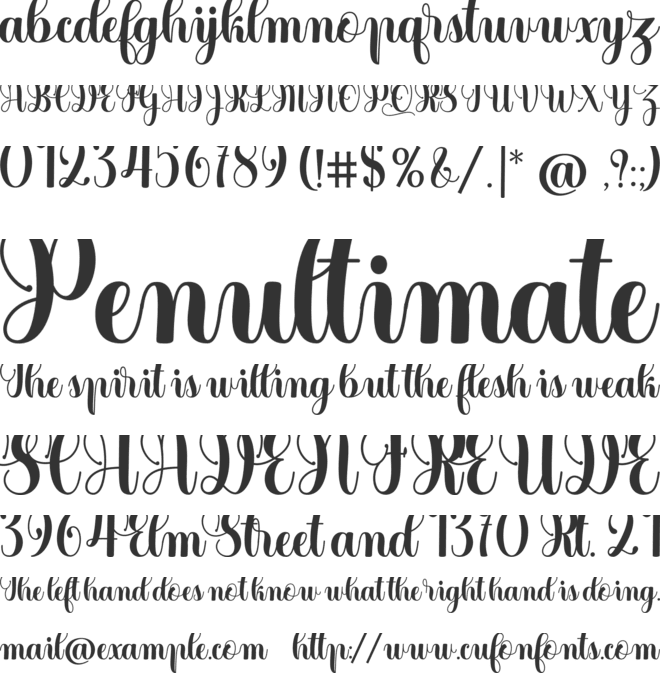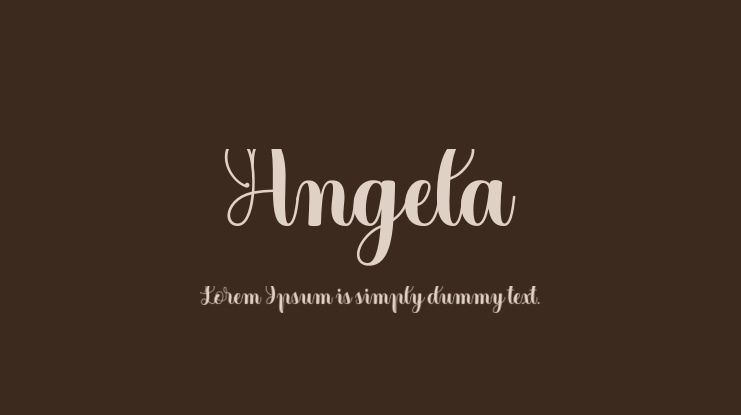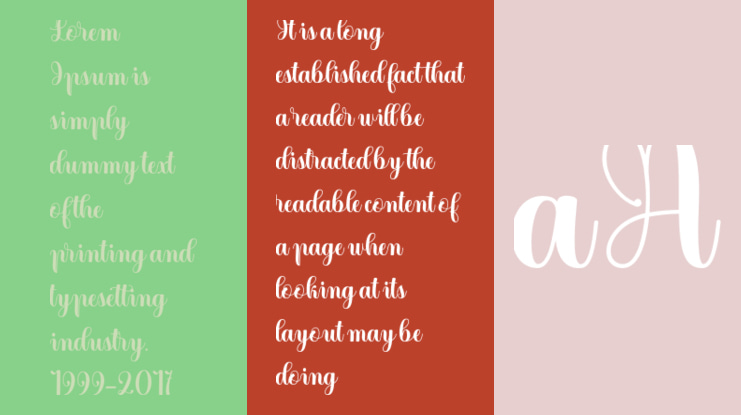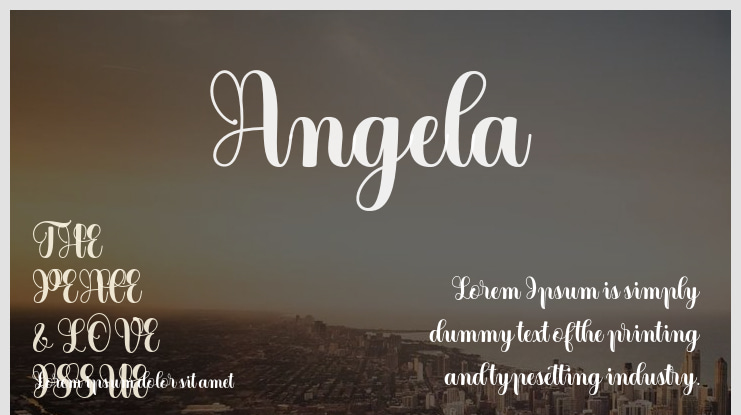
Angela Font
INTRODUCE...! Angela
Angela is a type of font with personality. You can use it as logos, badges, packaging, titles, posters, t-shirts / clothes, greeting cards, and wedding invitations. Flowing characters are ideal for creating interesting messages, mixing and matching Montana with many alternative characters that fit your project.
Alternative characters in this font are divided into several OpenType features such as Stylistic Alternate, Stylistic Sets, and Ligature. The OpenType feature can be accessed using OpenType programs such as Adobe Illustrator, Adobe Photoshop, and Adobe InDesign.